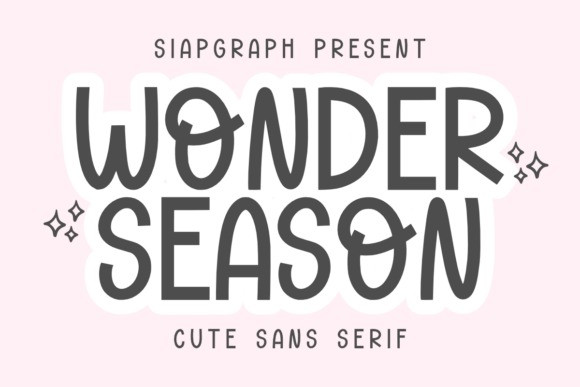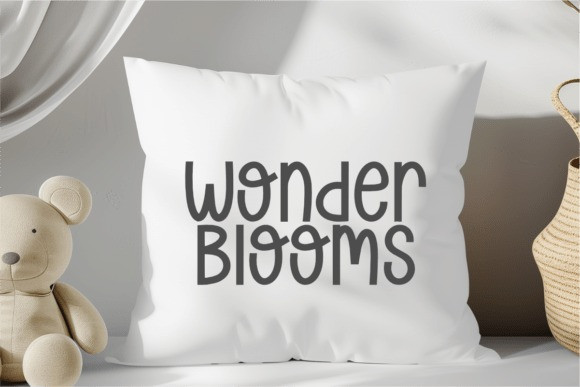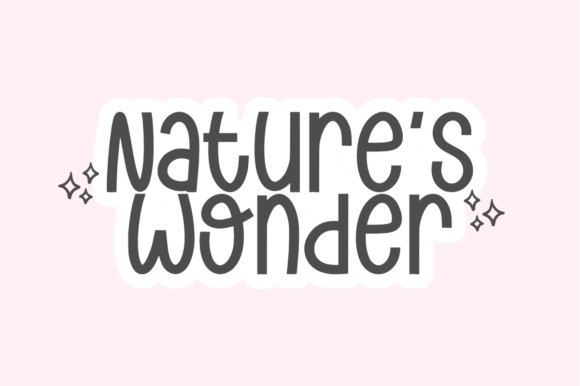
Wonder Season Script Font
Wonder Season Script Font a whimsically charming handwritten font. Its exceptional beauty is the perfect complement for a myriad of creative projects ranging from the casual charm of T-shirts to the intricate detailing of embroidery. A tumbler or tote bag styled with Wonder Season is transformed from an everyday item into a personal statement piece. Whether crafting your logo or adorning a keychain, this font captures the essence of your brand. Add a personal touch to your planner or express your creativity through digital and craft branding.